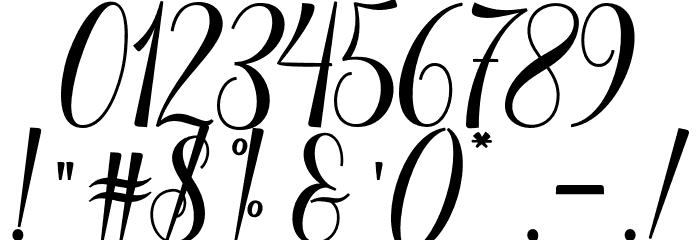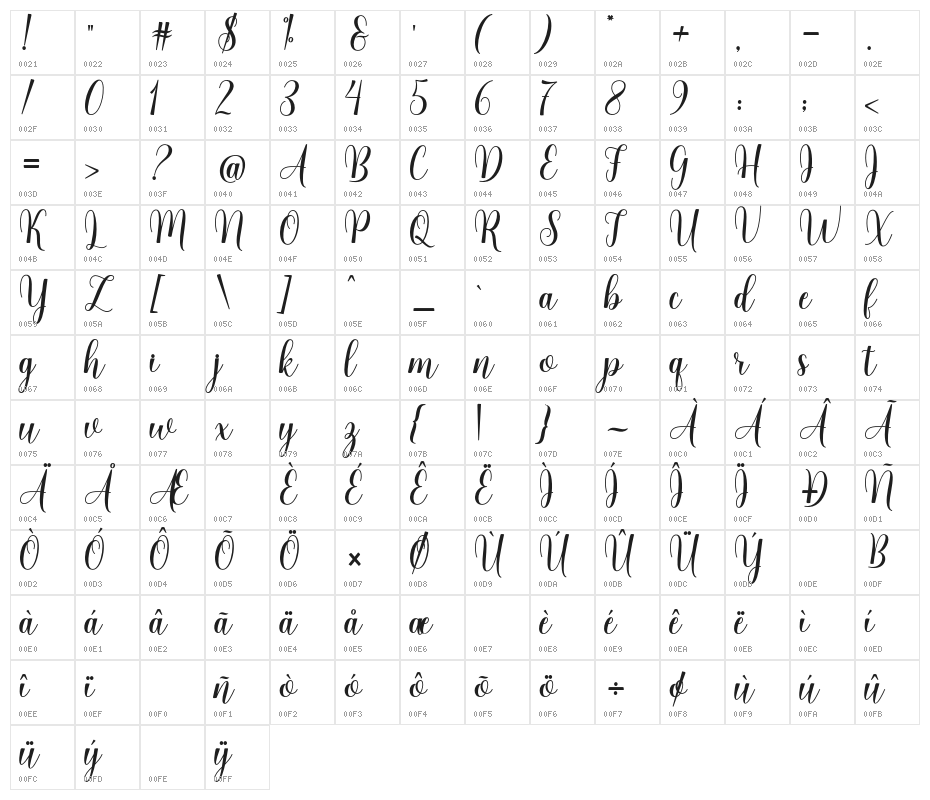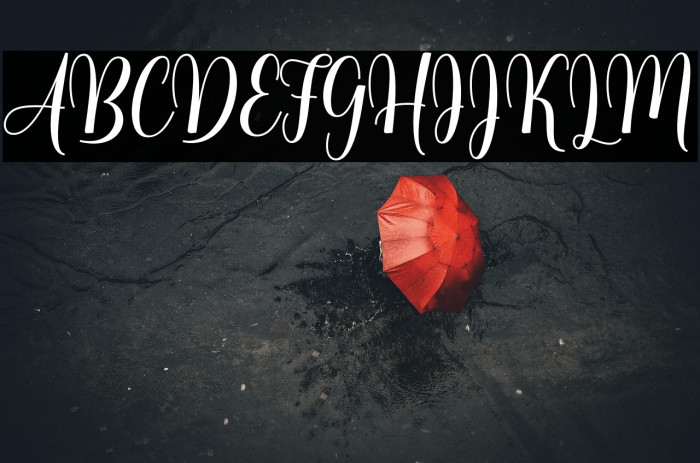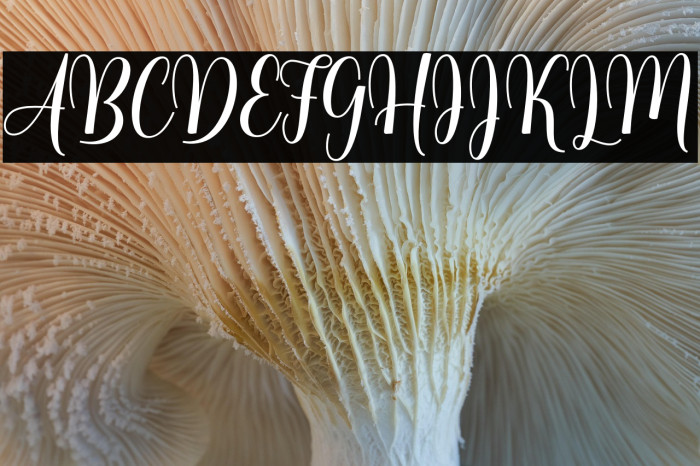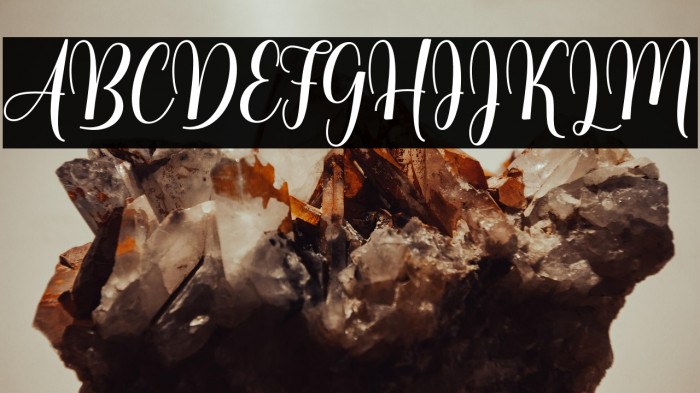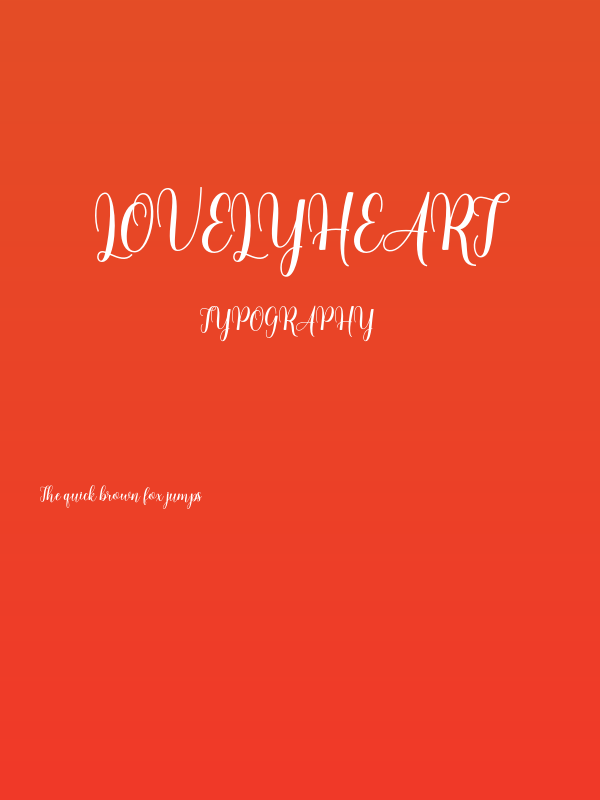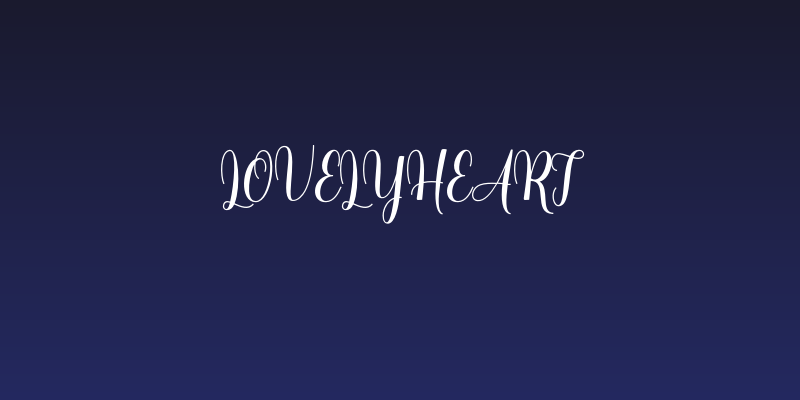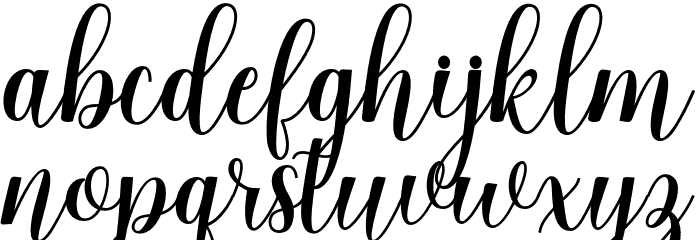
lovelyheart Font
This font exudes a charming and elegant script style, characterized by its flowing, cursive letterforms. The uppercase letters are tall and graceful, with sweeping curves and delicate loops, while the lowercase letters maintain a consistent fluidity that enhances readability. The numerals are stylishly integrated, maintaining the overall aesthetic with their curved and slightly elongated forms. Special characters are thoughtfully designed to match the script's elegance, adding versatility for various uses. The font's overall appearance is both sophisticated and approachable, making it suitable for a wide range of creative projects.
Overall StyleElegant
Use CaseLogos, Invitations, Decorative text
Proposed ProjectsIdeal for wedding invitations, greeting cards, branding, and elegant signage.